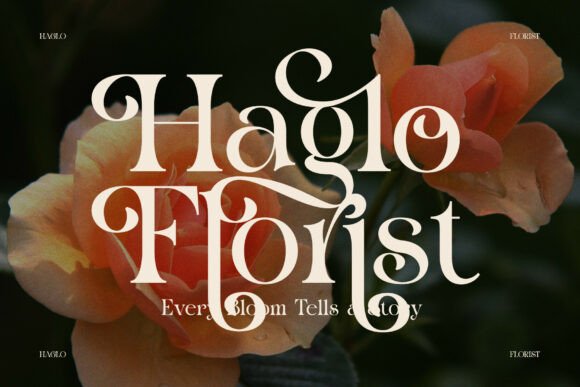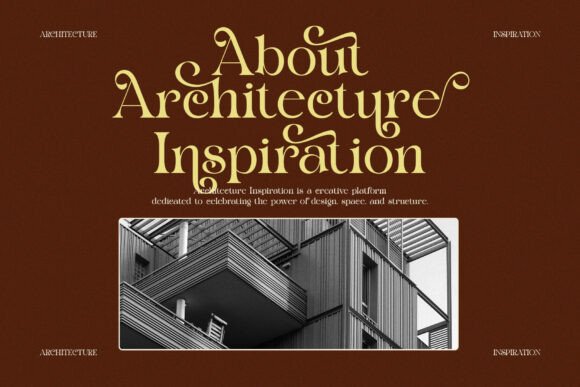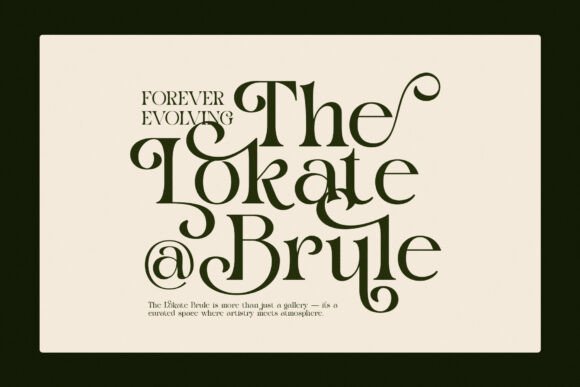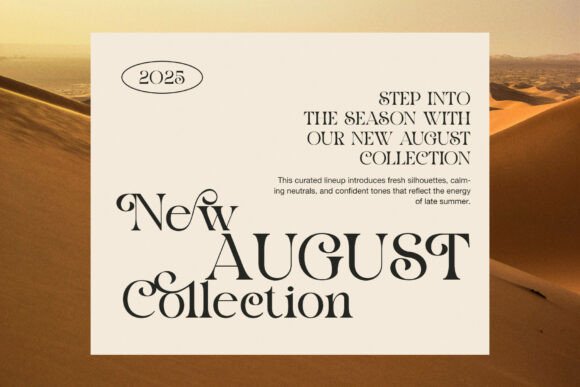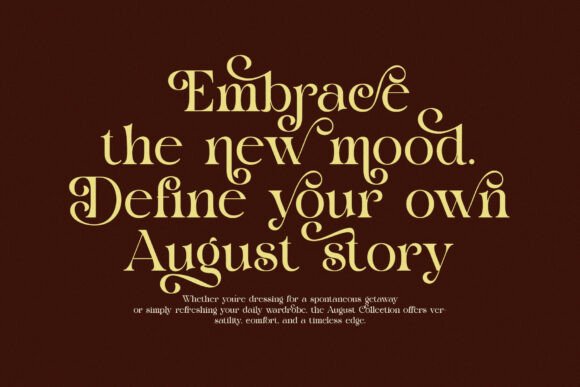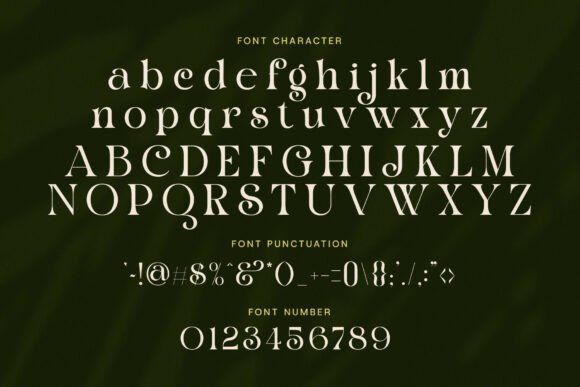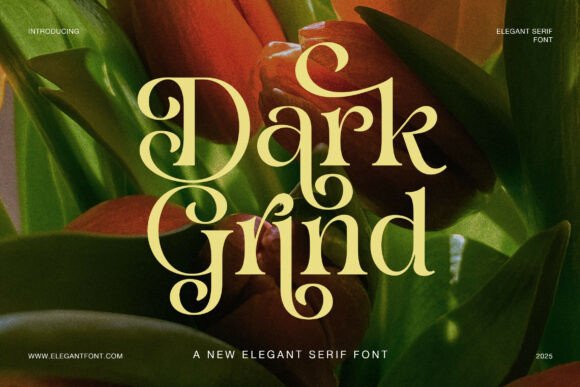
Unleash the Power of Dark Grind Font: Elevate Your Designs with Elegance and Sophistication
In the world of typography, fonts play a crucial role in conveying the tone and personality of a design. Among the numerous font styles available, Dark Grind stands out for its unique blend of classic and artistic elements. This stunning font features a strong contrast between bold strokes and fine curves, making it an excellent choice for designers and crafters looking to add a touch of elegance and sophistication to their work.
Classic yet Fresh: The Distinctive Characteristics of Dark Grind
Dark Grind’s letterforms exude a classic feel, reminiscent of traditional typography. However, the large curls and stylish alternates inject a fresh and artistic vibe, setting it apart from more conventional fonts. The uppercase letters boast long swash forms, which create a grand and custom look, perfect for making a statement. Meanwhile, the lowercase letters feature unique curves, soft hooks, and flowing tails that add to the font’s distinctive charm.
The Art of Ligatures: Adding a Personal Touch to Your Designs
One of the standout features of Dark Grind is its inclusion of ligatures. These special characters help words flow smoothly, creating a more personal and bespoke feel. Ligatures are especially useful in display text, titles, and logos, where a touch of elegance and refinement can make all the difference. By incorporating ligatures into your design, you can add a level of sophistication and attention to detail that sets your work apart.
Ideal for a Variety of Design Applications
Dark Grind’s versatility makes it an excellent choice for a range of design applications. Its strong, stylish presence is perfect for:
• Large titles and display text: Make a statement with Dark Grind’s bold, eye-catching letterforms.
• Logos and branding: Create a lasting impression with a custom, sophisticated logo that reflects your brand’s personality.
• Invitations and event materials: Add a touch of elegance and refinement to your invitations, wedding stationery, and other event materials.
• Brand layouts and marketing materials: Elevate your brand’s visual identity with Dark Grind’s unique blend of classic and artistic elements.
Tips for Working with Dark Grind Font
To get the most out of Dark Grind, consider the following tips:
• Experiment with font sizes: Dark Grind’s bold strokes and fine curves look stunning in large sizes, but also try using it in smaller sizes to add a touch of elegance to your body text.
• Play with ligatures: Take advantage of Dark Grind’s ligatures to create a more personal and bespoke feel in your designs.
• Combine with other fonts: Pair Dark Grind with complementary fonts to create a unique and visually appealing typography scheme.
Dark Grind Font is a powerful tool for designers and crafters looking to add a touch of elegance and sophistication to their work. With its strong contrast between bold strokes and fine curves, classic yet fresh letterforms, and artistic alternates, Dark Grind is the perfect choice for a range of design applications. By incorporating Dark Grind into your design toolkit, you’ll be able to create stunning, high-impact designs that leave a lasting impression.